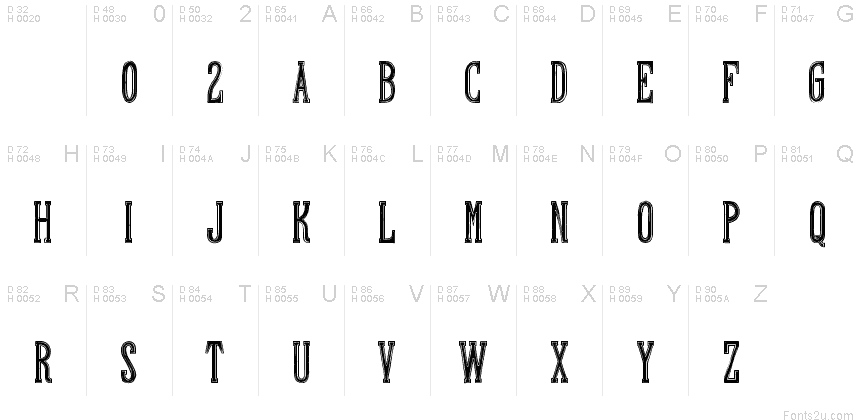
Hand Shop Typography A20 from FontsCafe is a free retro display font with the lean, theatrical build of nineteenth-century poster lettering. Its tall capitals combine hairline inner strokes, flared serifs, and doubled contours that make each letter resemble engraved shop signage.
Vintage storefront illustrations and handbill graphics share its outlined, old-commercial character, making it apt for specialty market branding and period-themed food packaging. It also suits sideshow posters, fairground events, and merchandise. In publishing, the narrow proportions and decorative internal lines suit mastheads or cover typography inspired by antique newspaper advertisements.
Hand Shop Typography A20 is the first of a family of eight fonts called Hand Shop Typography Pack 01.